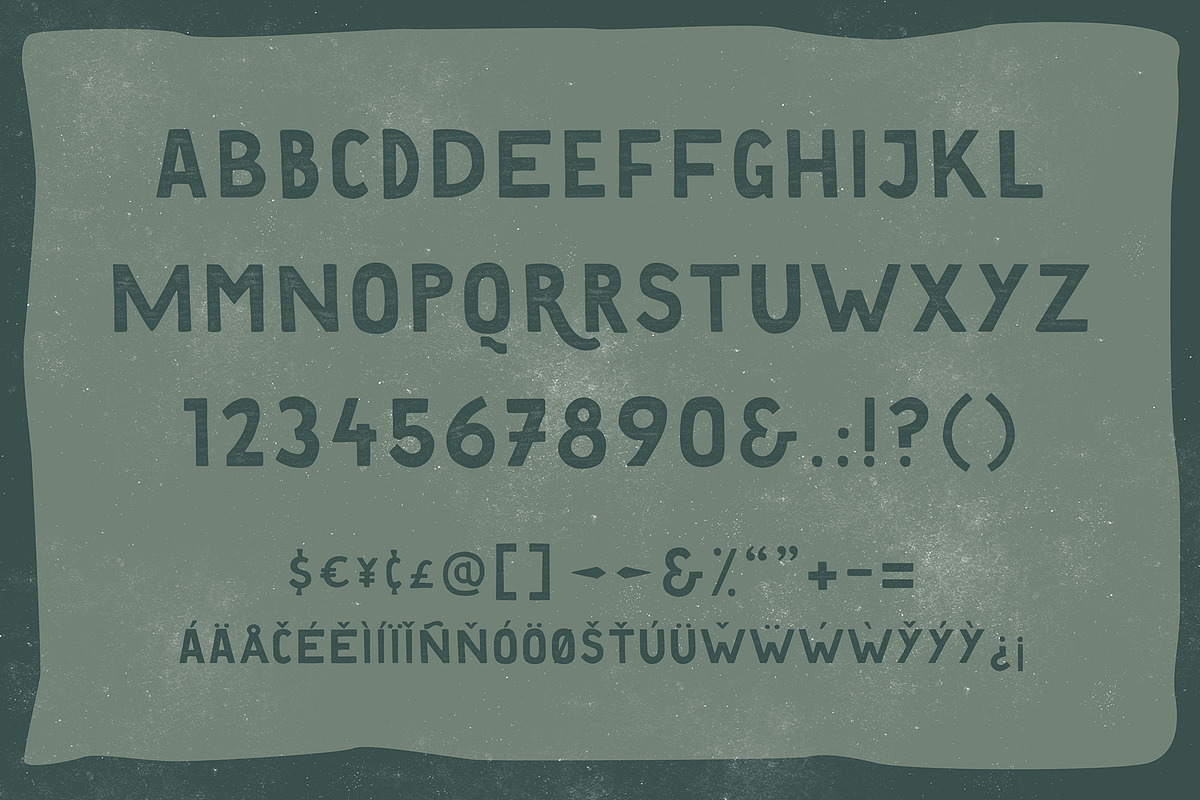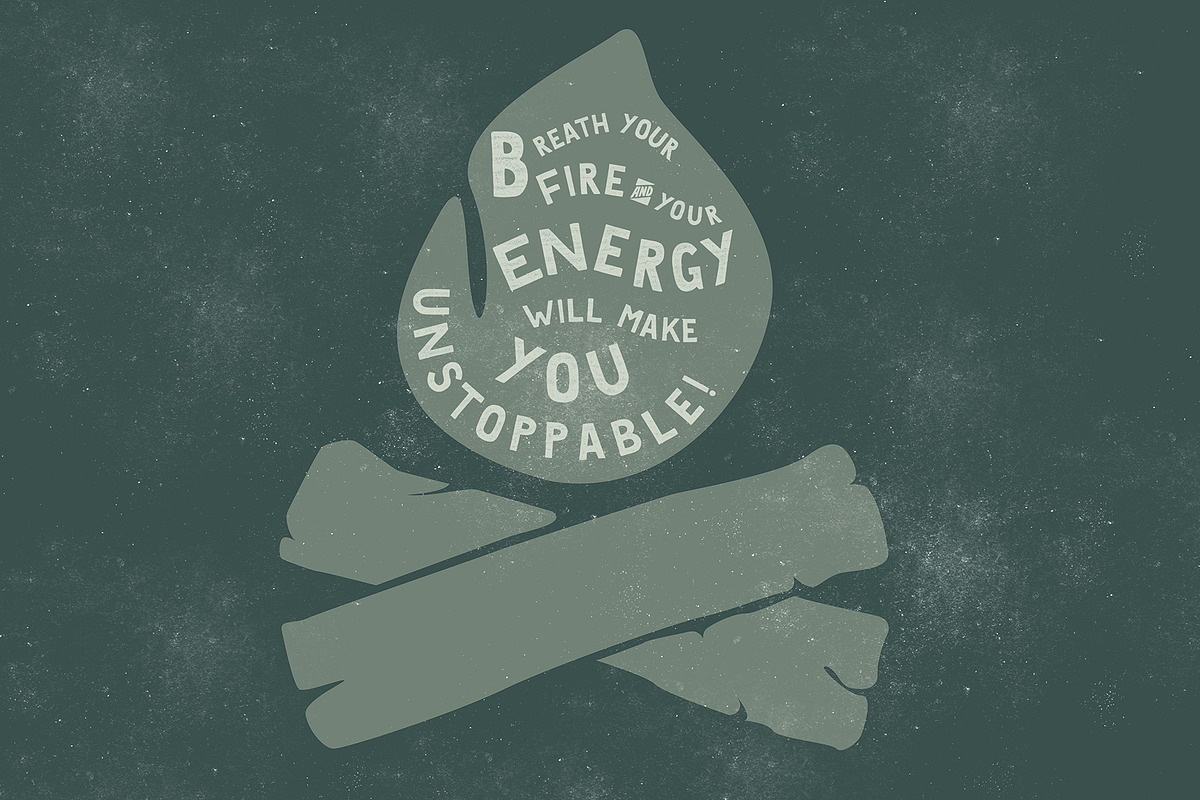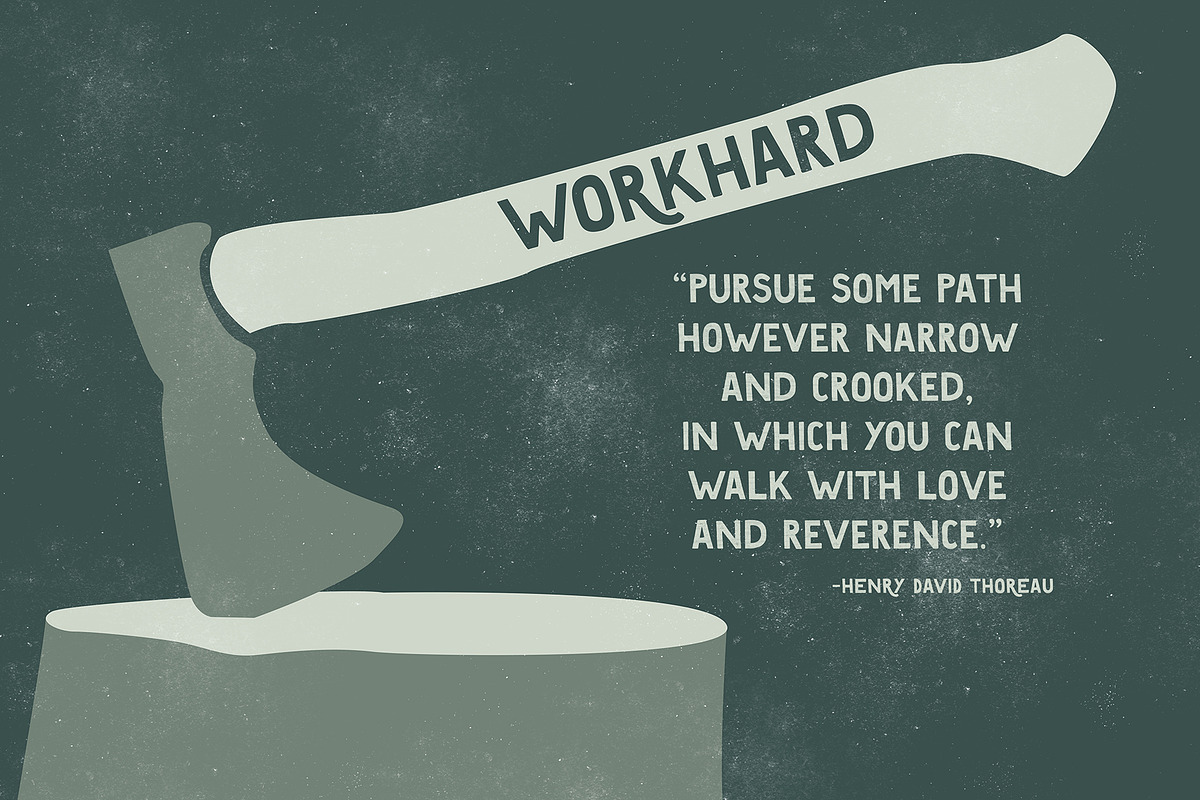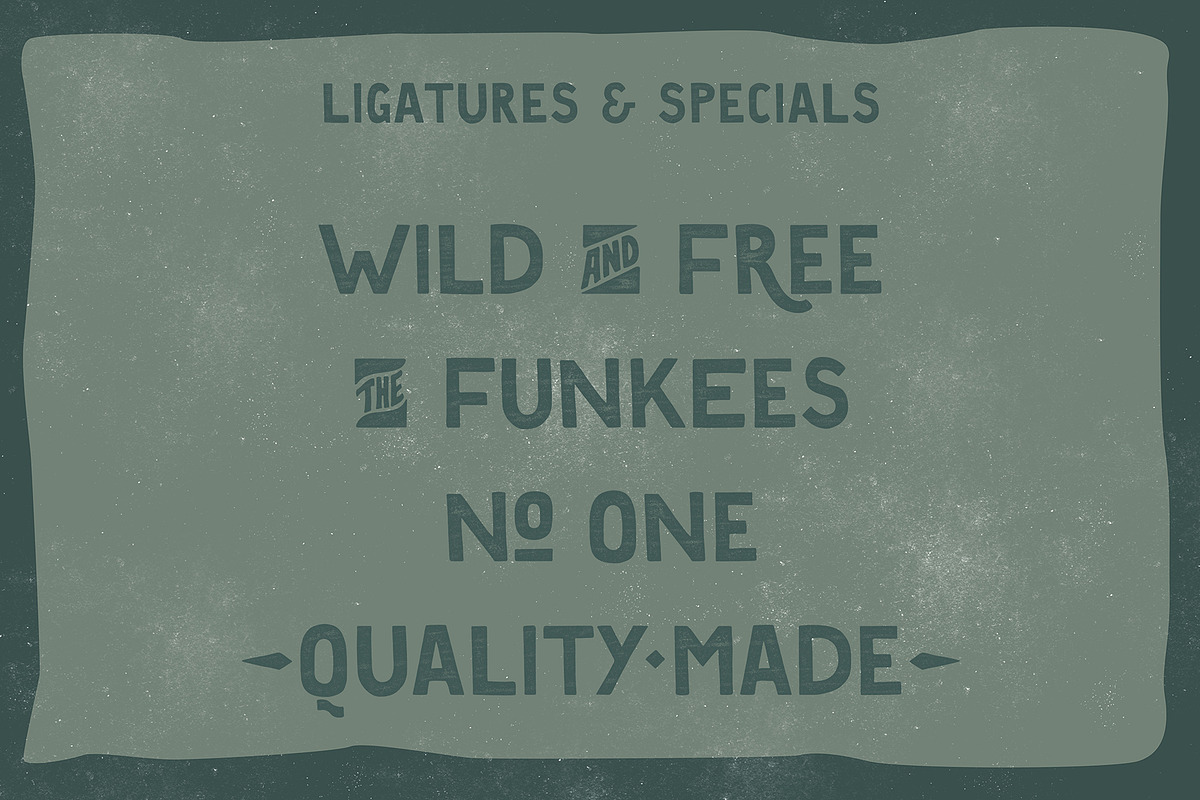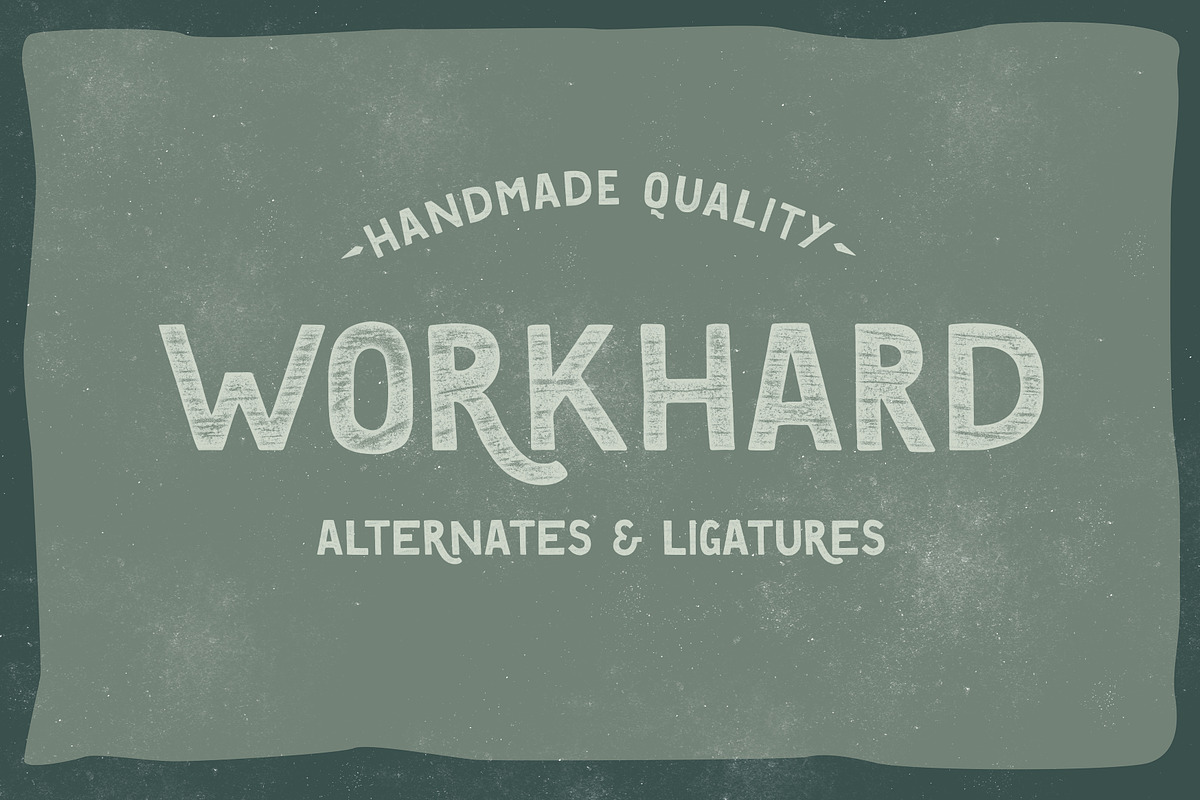
WORKHARD Typeface
WORKHARD is entirely drawn by hand which gives this font a very friendly attitude and an easy to use appearance in multiple projects
Try Workhard for:
- Branding
- Instagram posts
- Signs
- Posters
- Apparel designs
- Headlines
- Editorials & more
Supports various different languages like
- Spanish/latin American
- French
- German
- Scandinavian languages
- Slavic languages